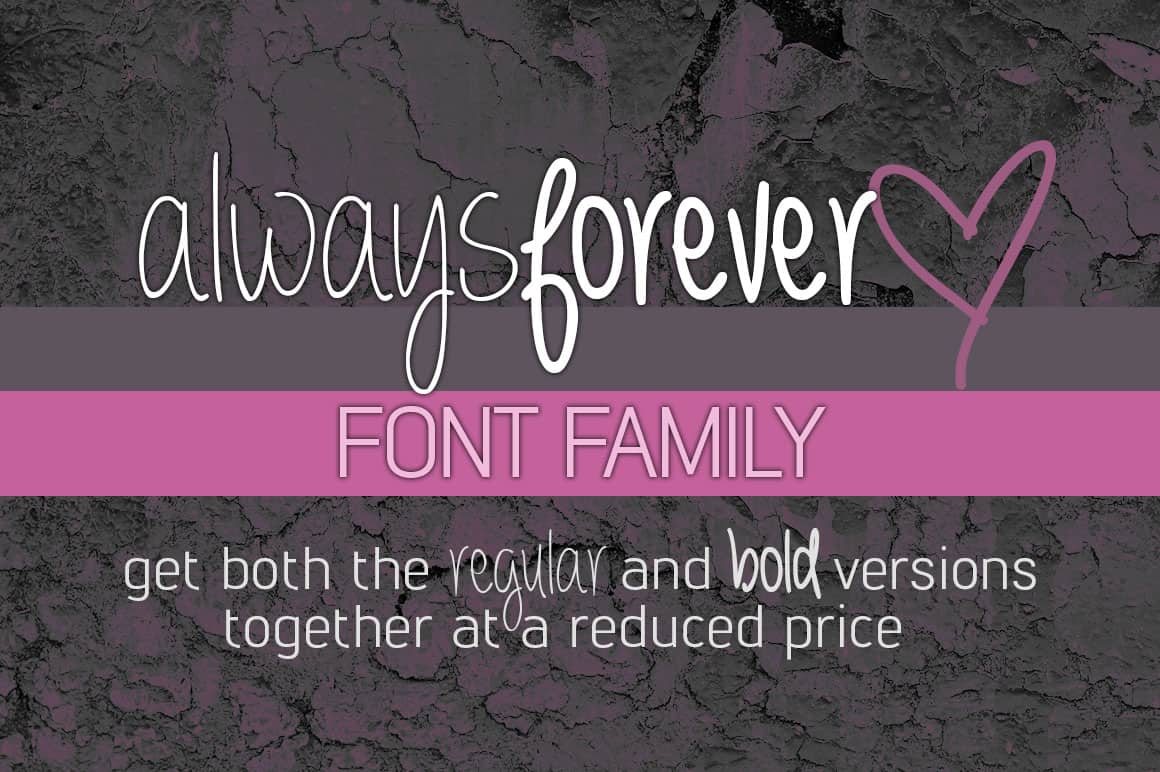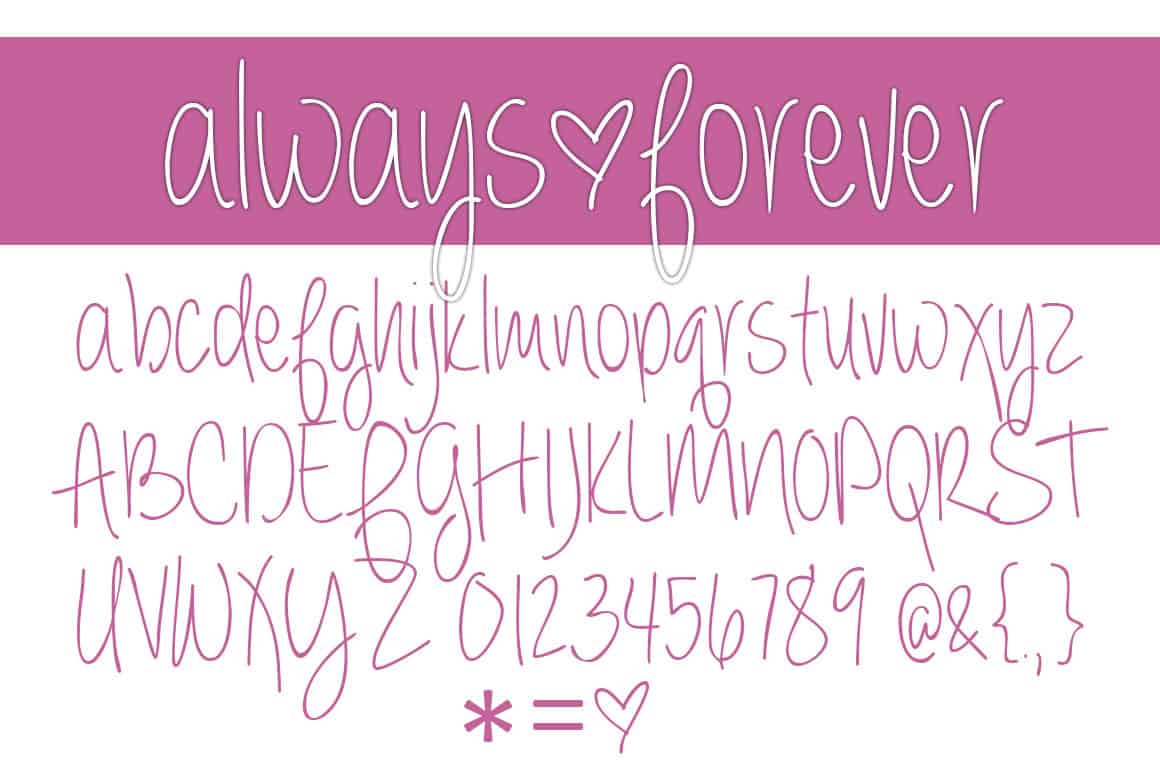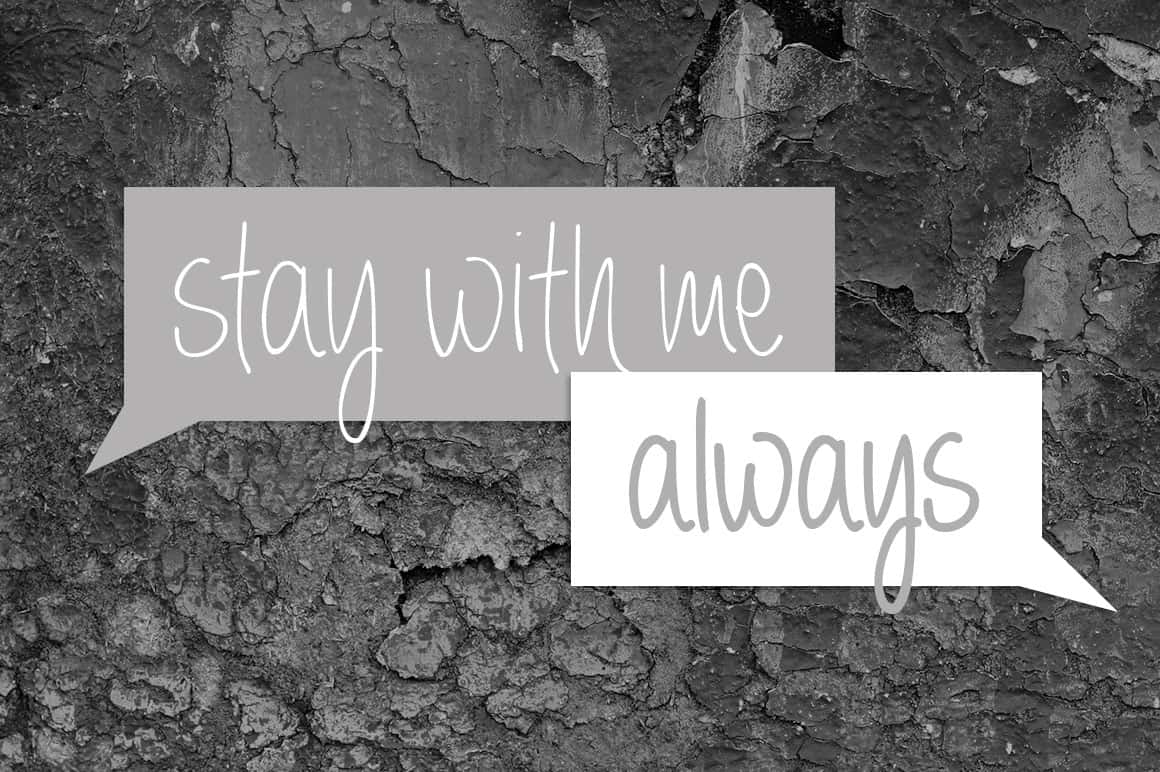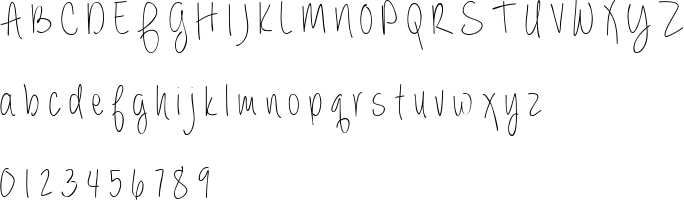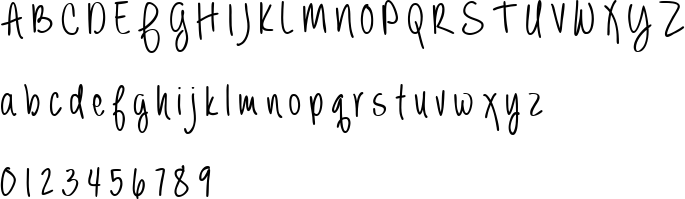
Always Forever Font
Always Forever Font Family
Always Forever Quote Font Family
Always Forever Letters
About the Always Forever Font
Always Forever font family is a handwritten font family with 2 styles (Regular and Bold). Created in 2012, Always Forever has over 3 millions downloads world wide and has become popular on self made images for Instagram and Facebook. In addition, Always Forever font family comes with over 340 glyphs and characters including support for multiple languages. Great for your logo, website, and other graphic design projects.
Looking for the heart symbol? Use the asterisk.